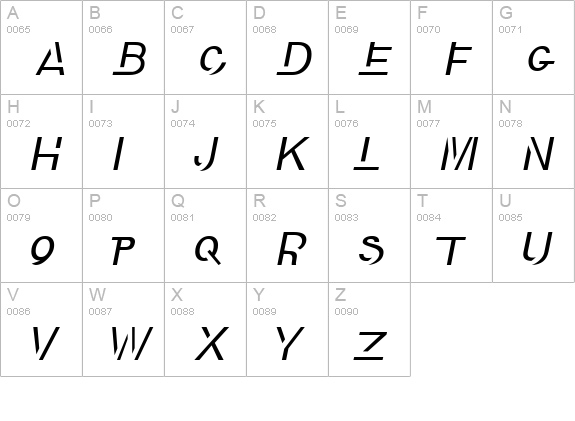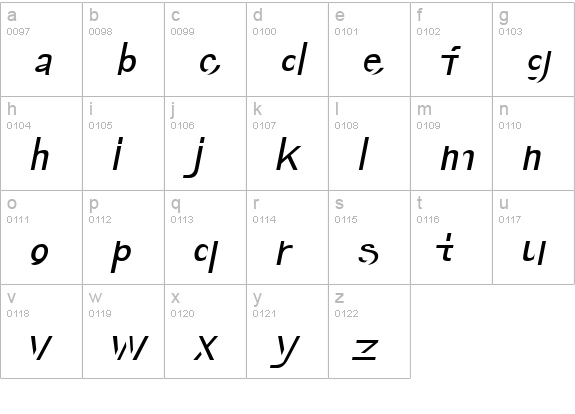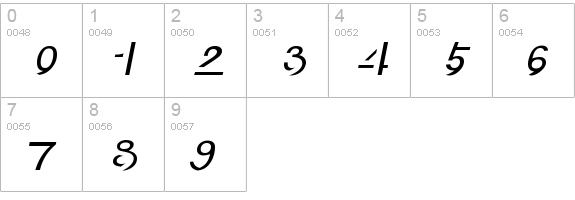
Dilemma Blue Font Details
Dilemma Blue font is a captivating and versatile typeface that exudes elegance and sophistication. Its sleek lines and modern design make it perfect for a wide range of projects, from branding to editorial design. The soft blue hue adds a touch of uniqueness and charm to any text, creating a sense of calm and tranquility. What's even better is that Dilemma Blue font is available for free download at FontsMarket.com. This means you can easily access this stunning font and use it in your projects without any cost. Don't miss out on the opportunity to enhance your designs with this beautiful typeface - download Dilemma Blue font today and let your creativity shine!